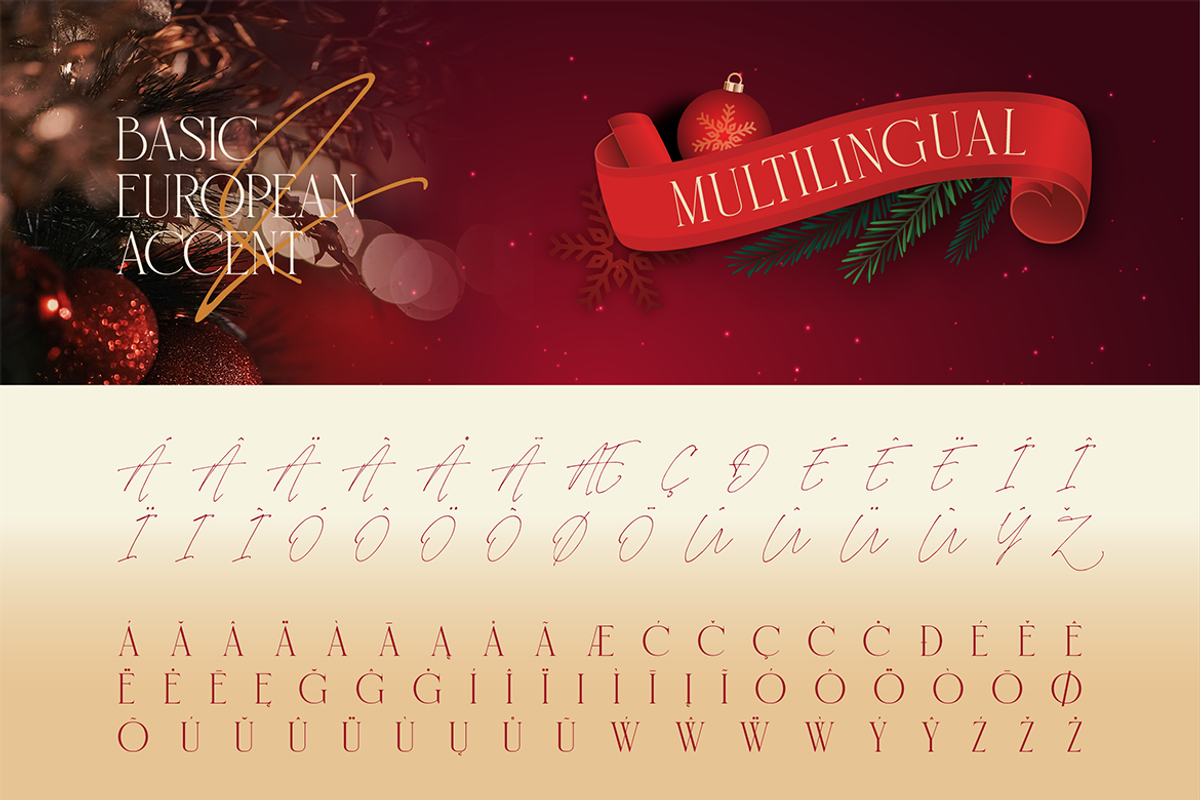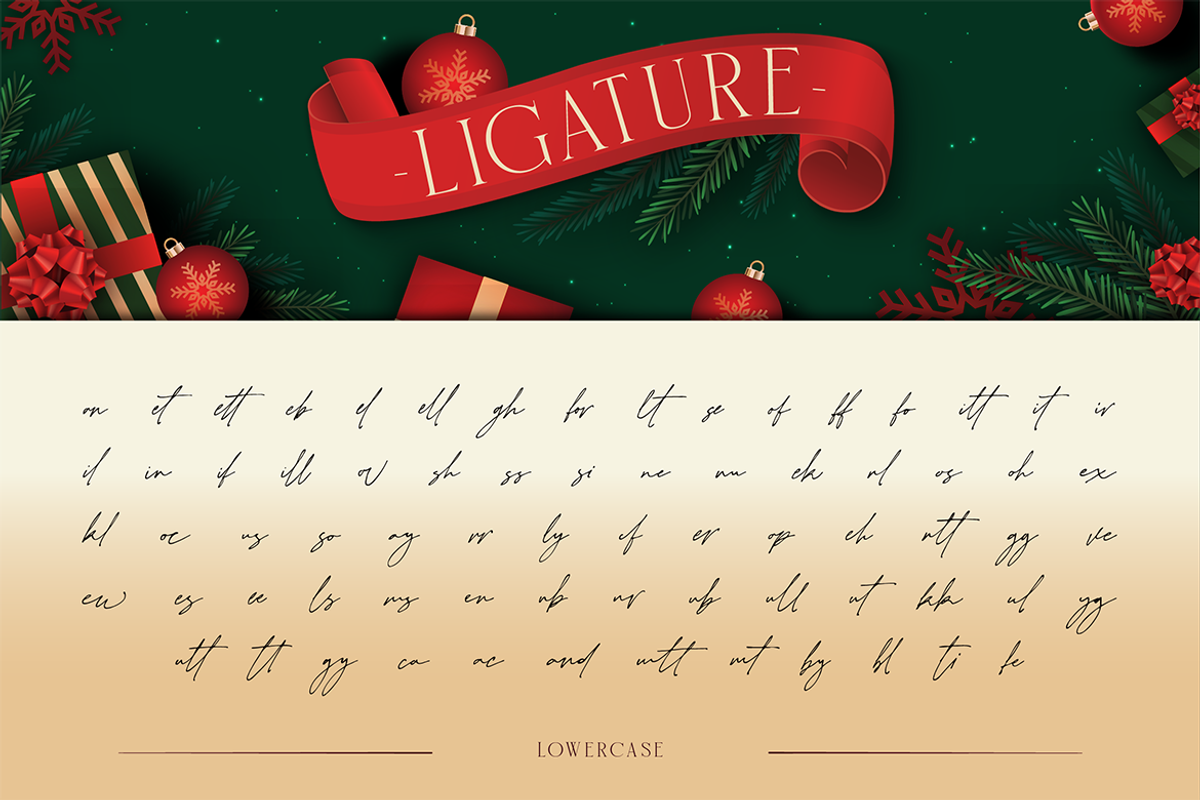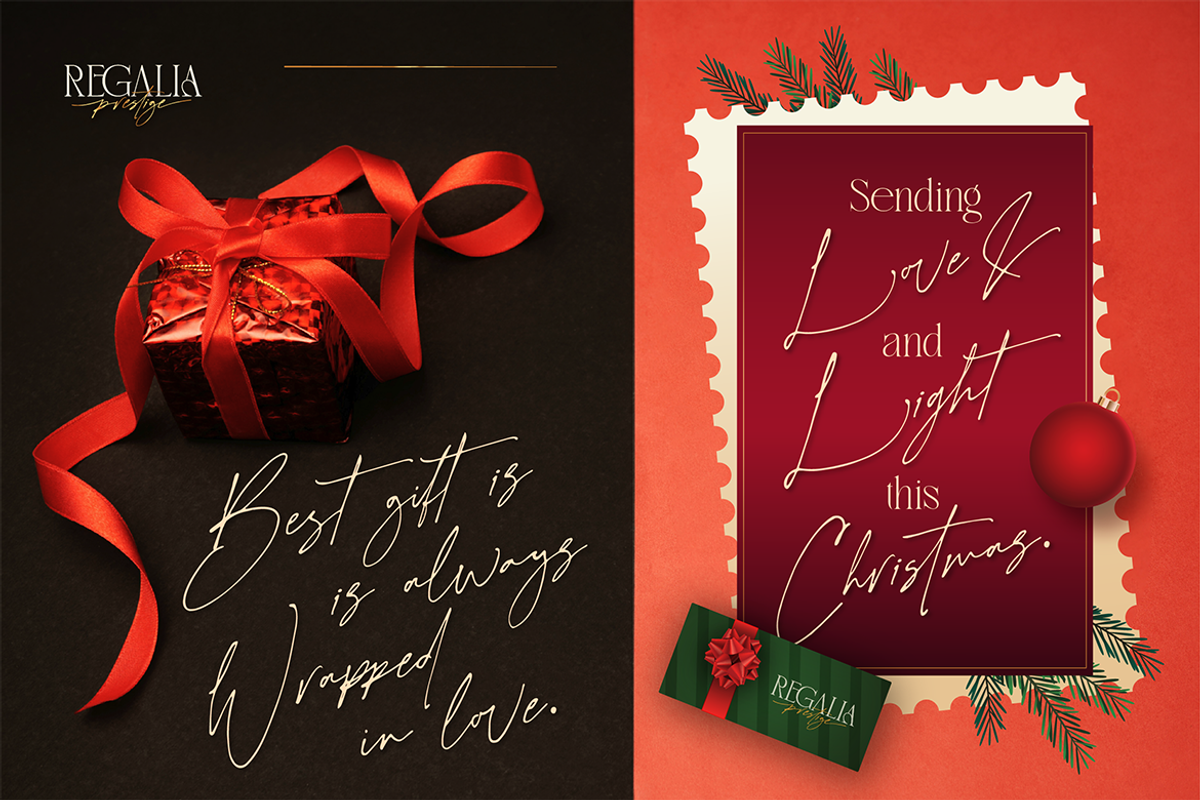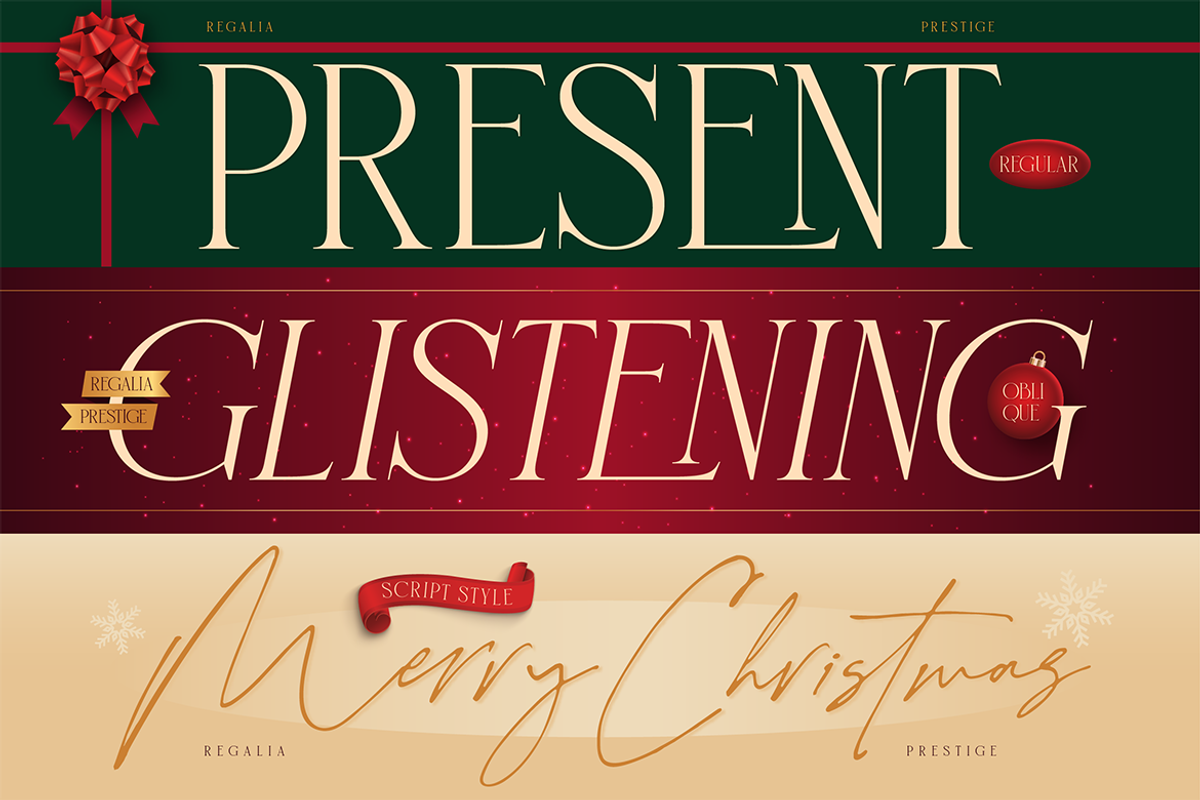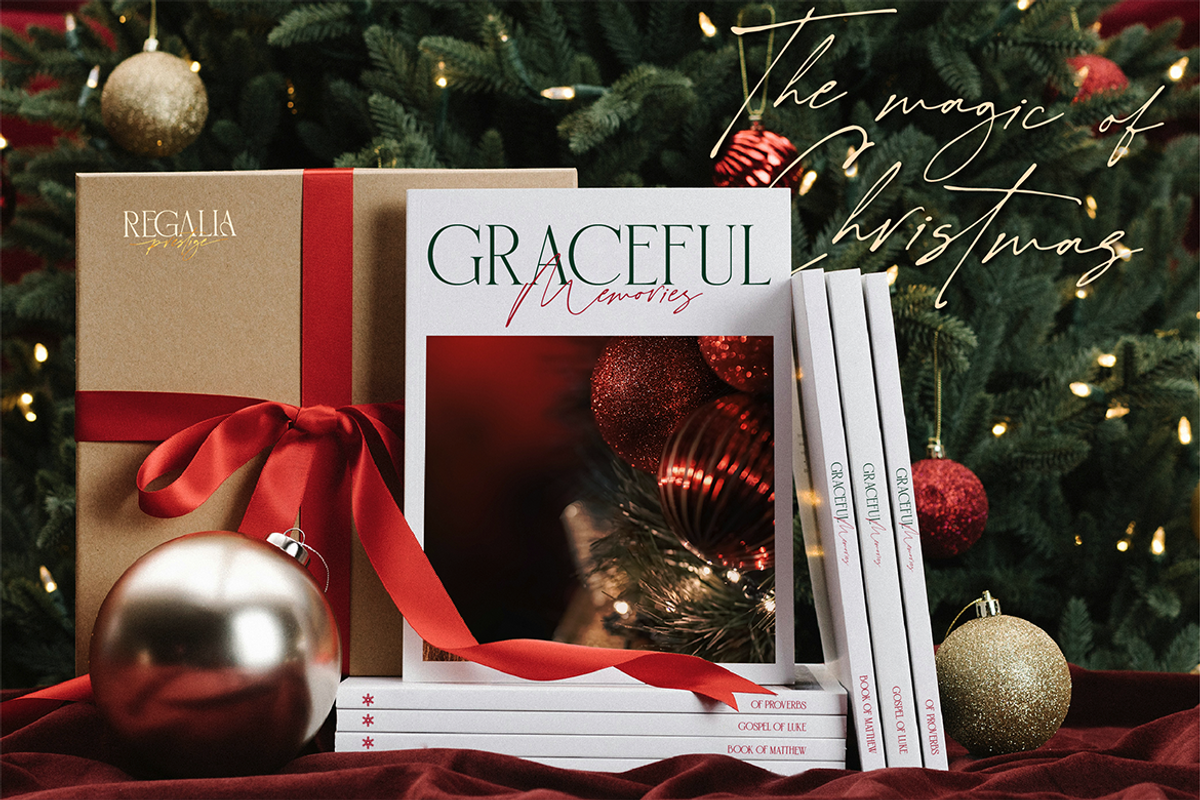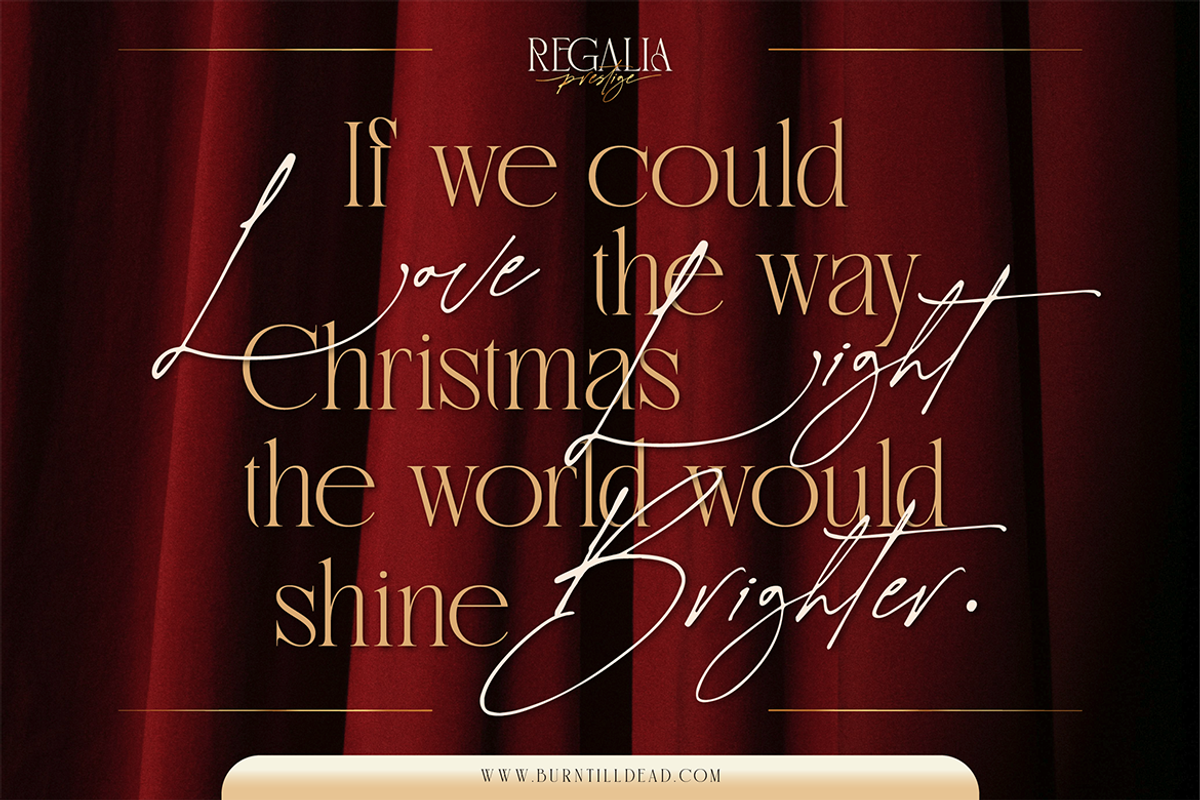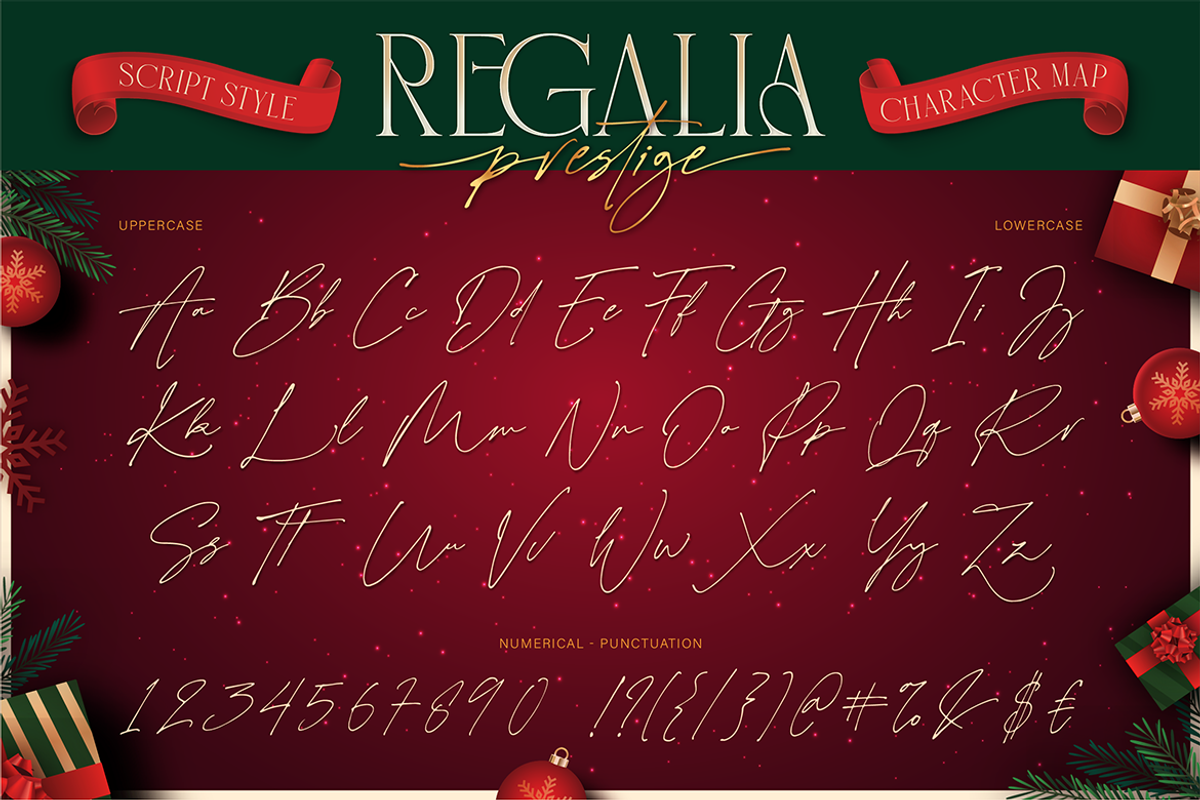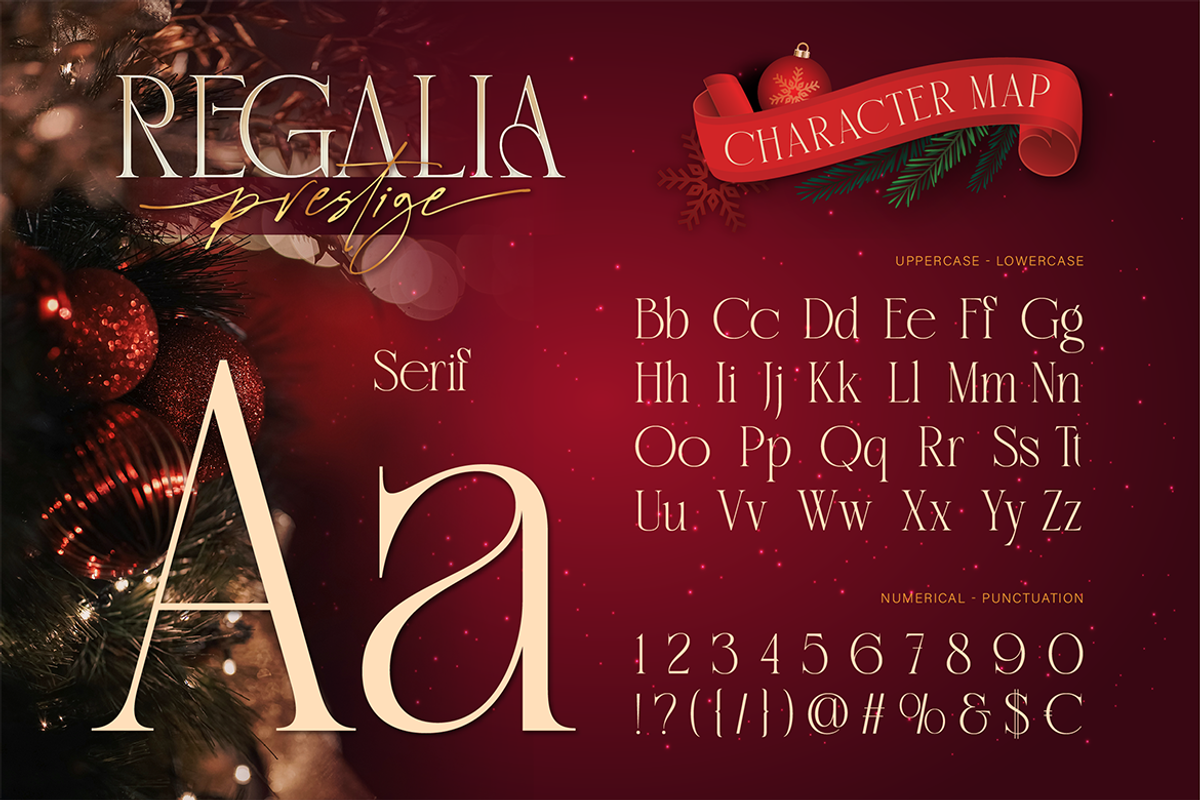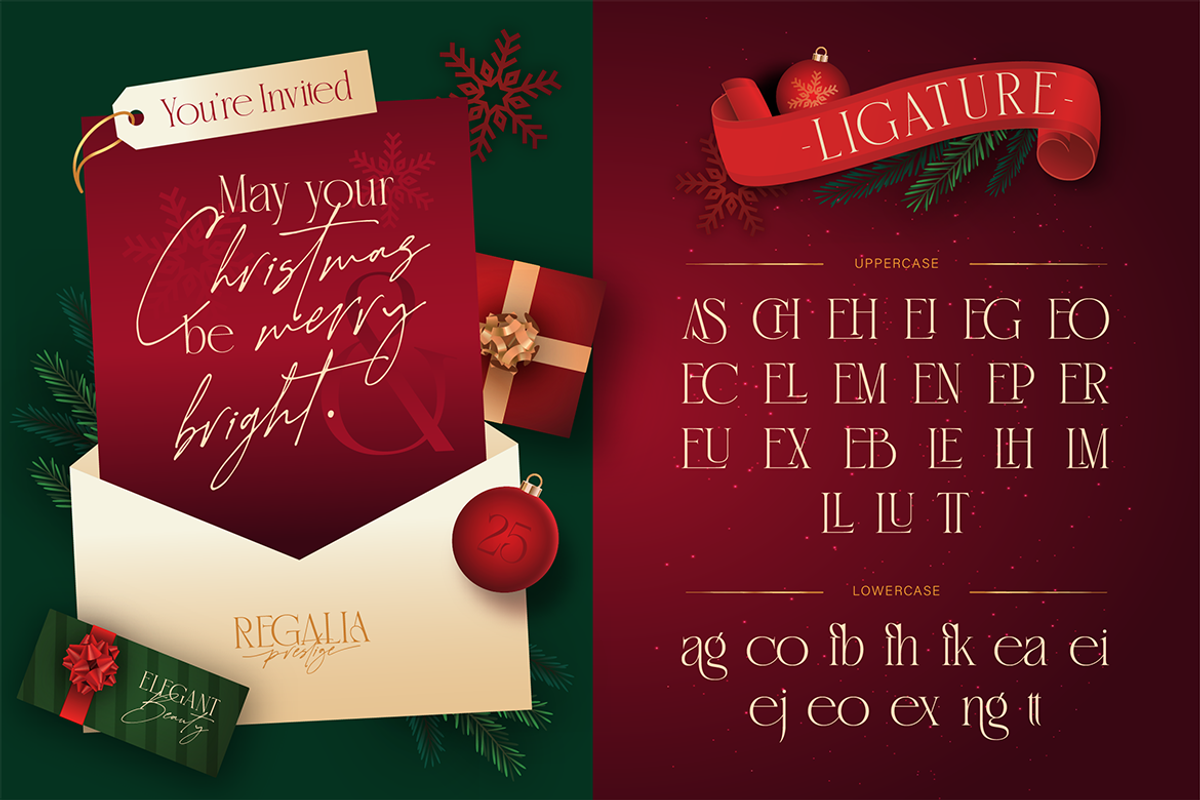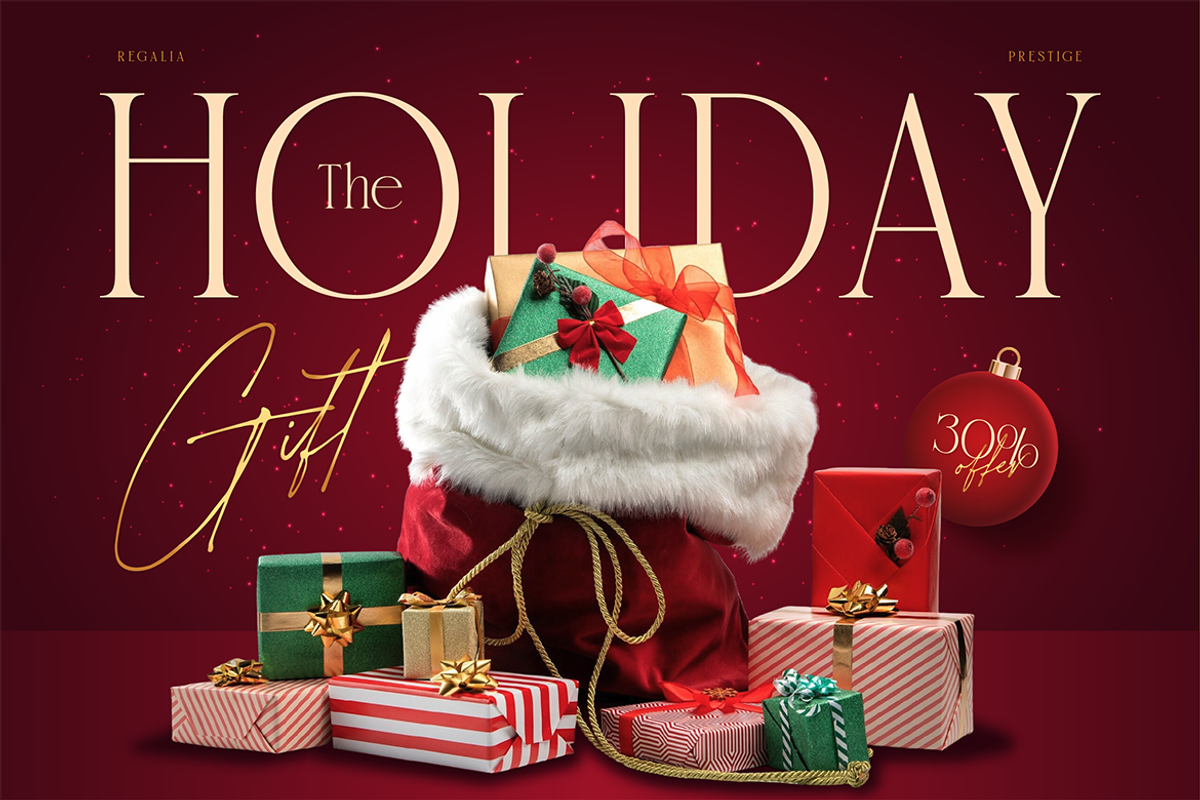
Regalia Prestige
Experience the enchanting beauty of Regalia Prestige — a luxurious typeface duo that captures the elegance and warmth of Christmas. Designed with sophisticated serif forms and a graceful handwritten script, this font brings a refined festive touch to every design.
The serif style embodies timeless beauty, perfect for magazine covers, invitations, and classy branding. Meanwhile, the flowing script adds heartfelt charm — like a handwritten note wrapped with love. Together, they create a harmonious balance between tradition and modern allure.
Whether you’re crafting Christmas cards, seasonal packaging, or festive editorials, Regalia Prestige shines with its golden glow and polished details — a celebration of love, light, and the magic of the holidays.
A - Z set (Uppercase & Lowercase)
Number
Regalia Prestige Character Map